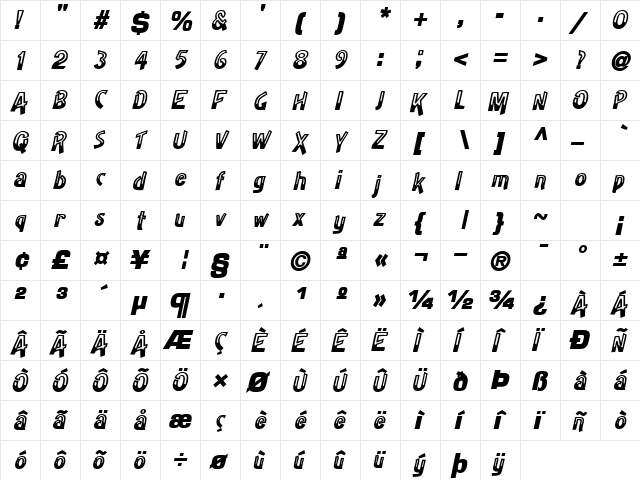
HalfBakedSSK BoldItalic Font Preview
Design Context for HalfBakedSSK Typeface
HalfBakedSSK takes a measured approach to typography — its balanced proportions and neutral character make it a reliable workhorse for both digital and print work. Its italic angle brings a sense of urgency and motion to the letterforms. The heavy weight commands attention and anchors typographic hierarchies.